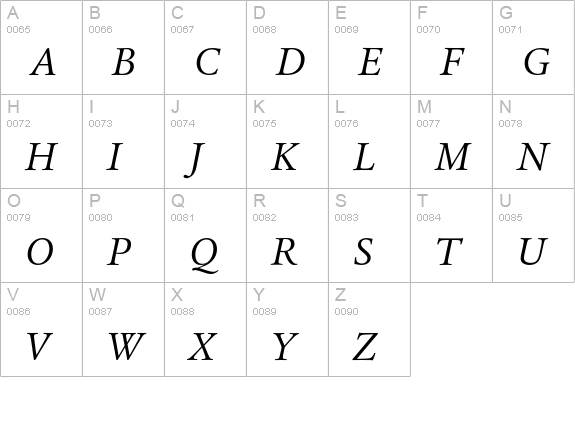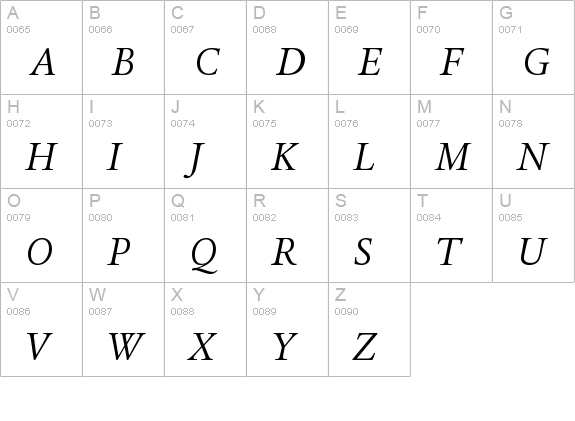
The LegacySerifEF-BookItalic font is a stunning and elegant typeface that exudes a sense of timeless beauty. Its graceful curves and delicate strokes make it perfect for adding a touch of sophistication to any design project. With its italic style, it adds a touch of elegance and flair to any text. This font is not only visually appealing but also incredibly versatile, making it suitable for a wide range of applications. Whether you're designing a wedding invitation, creating a logo, or working on a branding project, LegacySerifEF-BookItalic will elevate your work to new heights. The best part is that LegacySerifEF-BookItalic is absolutely free! You can download it at FontsMarket.com, a trusted platform for high-quality fonts. This means that you can use this font without any restrictions, allowing you to bring your creative visions to life without any limitations. With LegacySerifEF-BookItalic, you'll have access to a beautifully designed font that is not only visually pleasing but also easy to read. Its legibility ensures that your message is effectively communicated, while its distinctive style adds a touch of uniqueness to your project. So why wait? Download LegacySerifEF-BookItalic today and enhance your designs with this stunning font. Explore its endless possibilities and let your creativity soar. Whether you're a professional designer or a DIY enthusiast, this font is a must-have in your collection. Get inspired and unlock a world of design possibilities with LegacySerifEF-BookItalic.